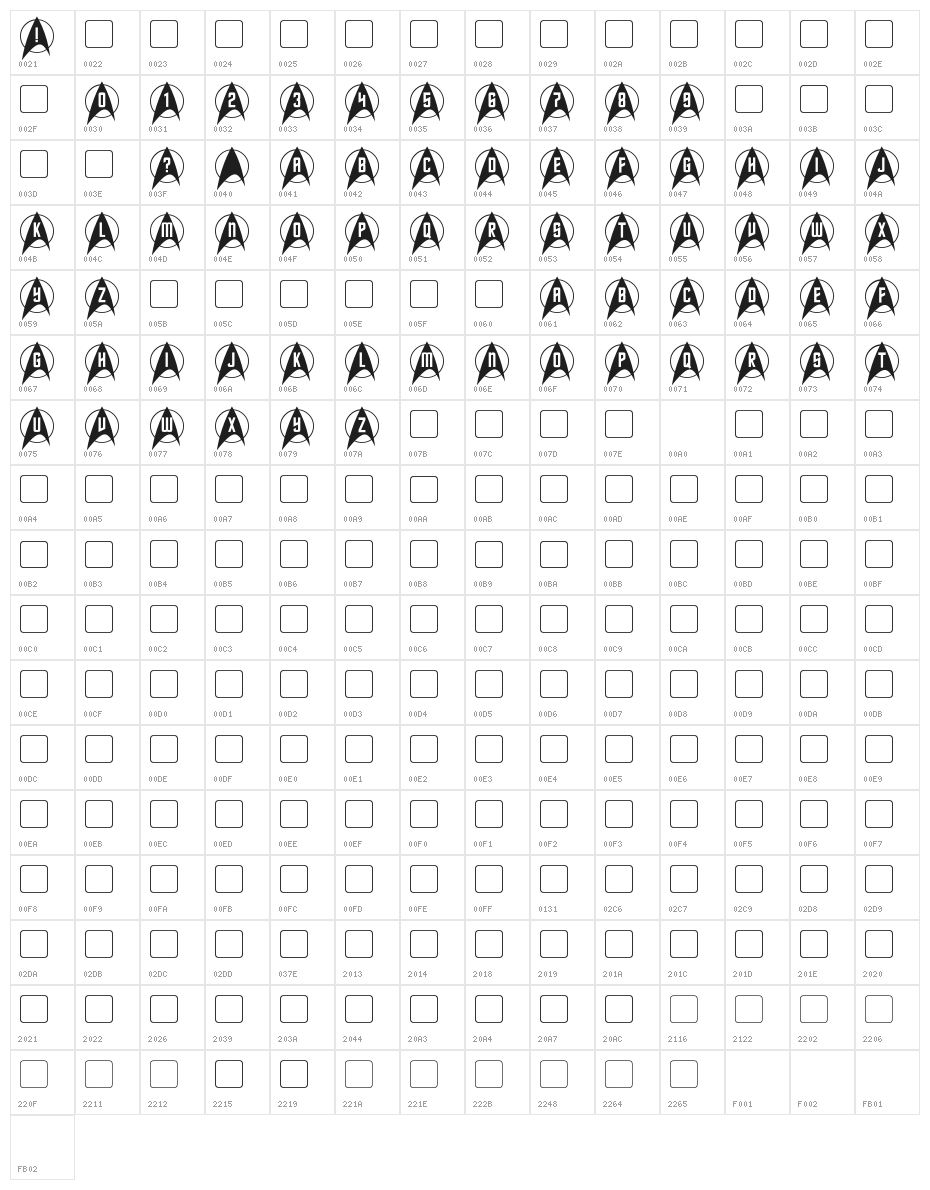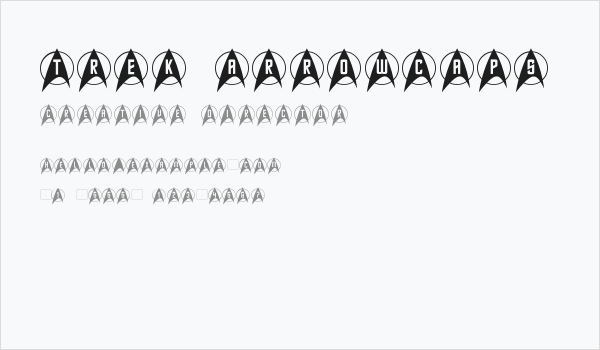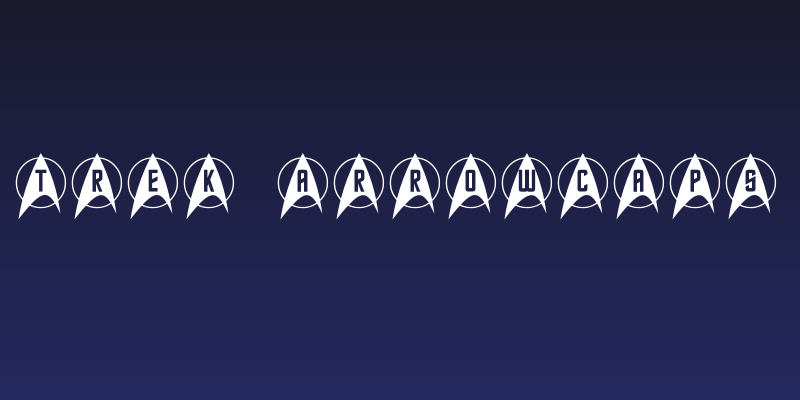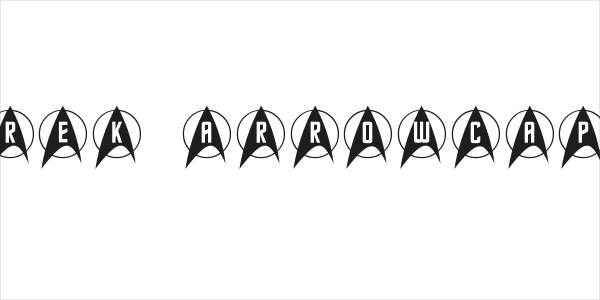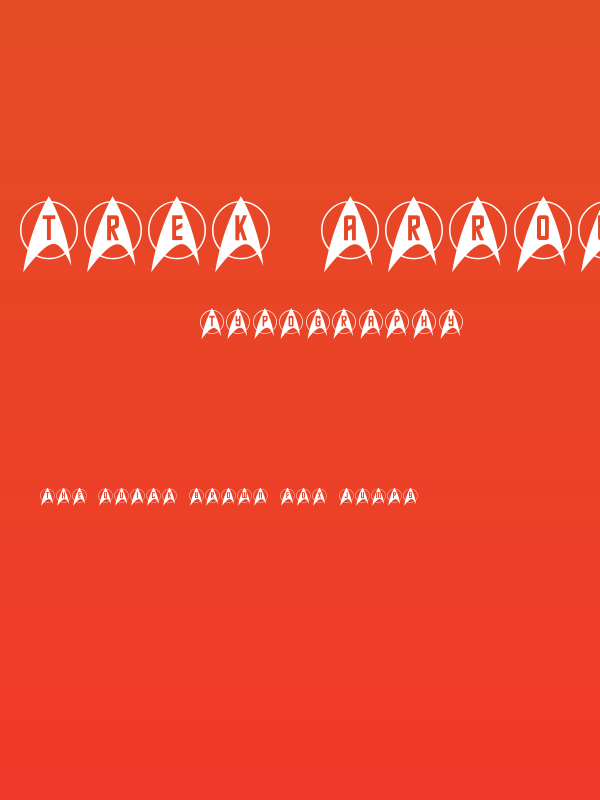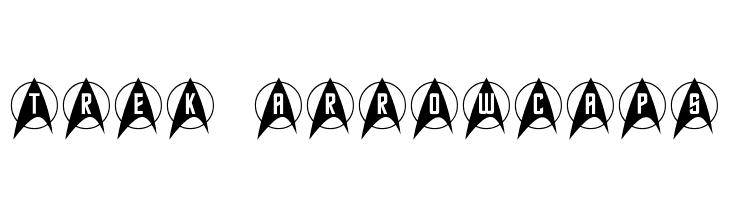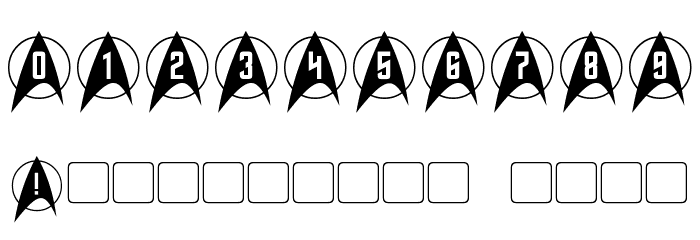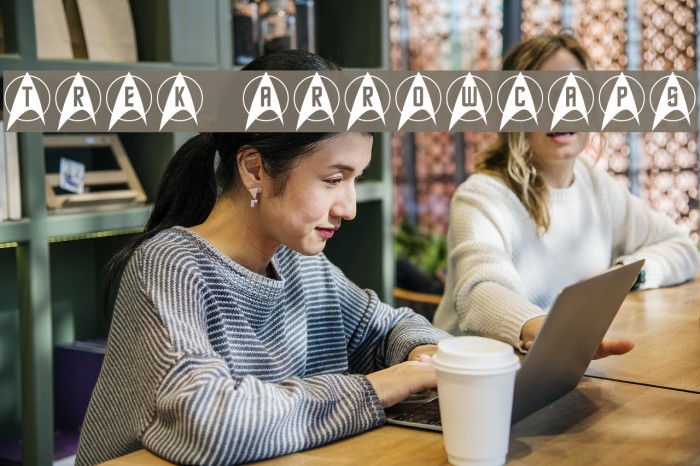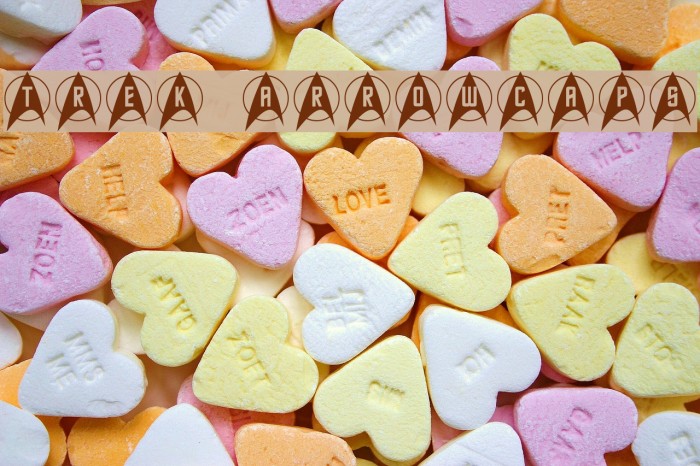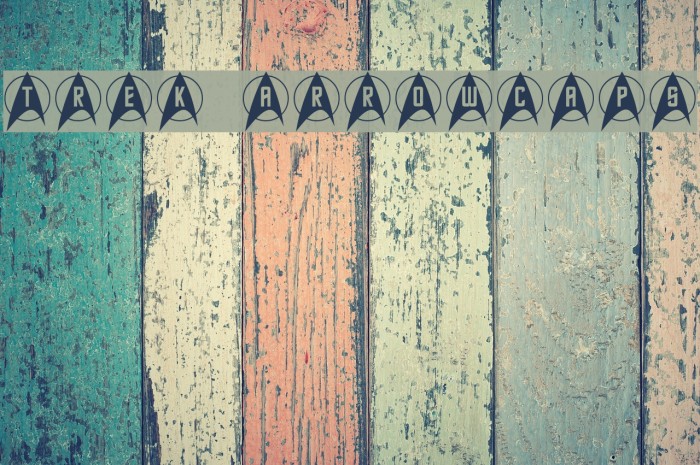
Trek Arrowcaps Font
Trek Arrowcaps Description
This font features a unique design where each character is encapsulated within a stylized arrowhead shape, reminiscent of a futuristic or space-themed aesthetic. The letters and numbers are bold and geometric, with a consistent thickness that provides a strong visual impact. The design is highly decorative, making it ideal for thematic projects that require a distinctive and eye-catching typeface. The characters are uniformly spaced within their arrowhead enclosures, creating a cohesive and balanced look across the entire set.
| Overall Style | Futuristic, Decorative |
| Proposed Projects | Ideal for science fiction themed posters, video game titles, or branding for tech-related products. |